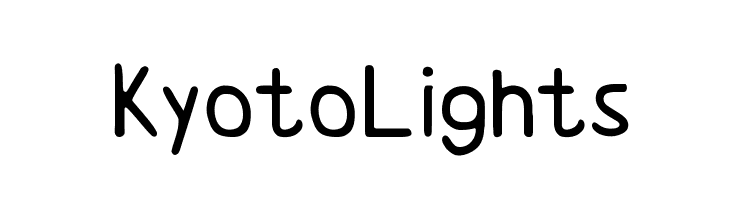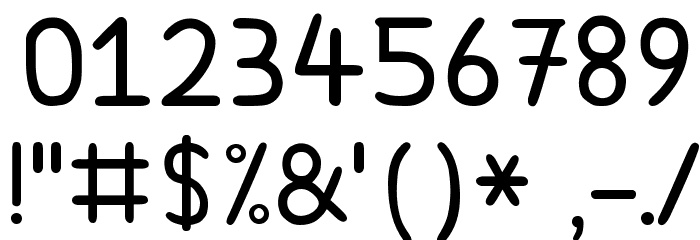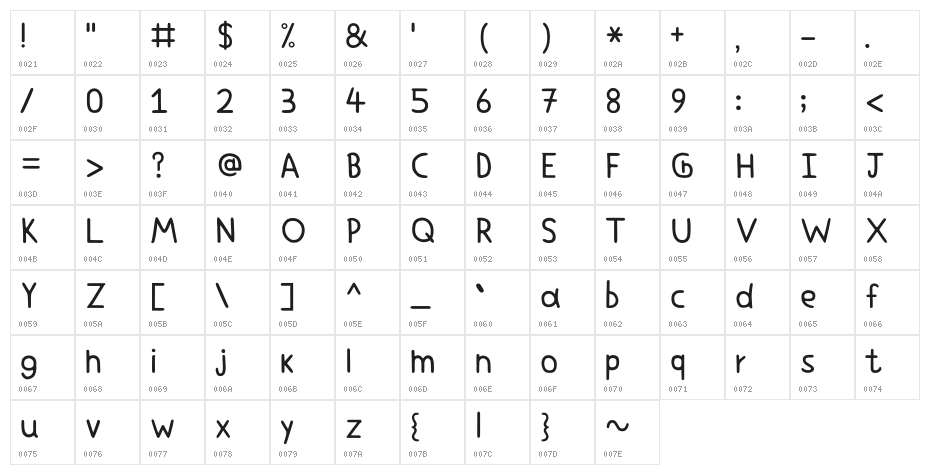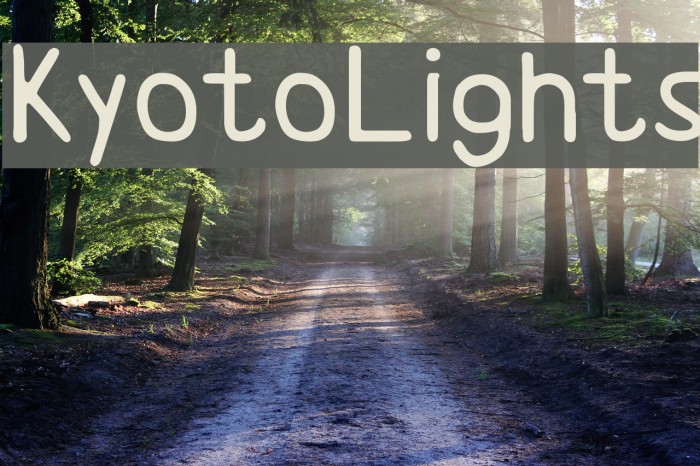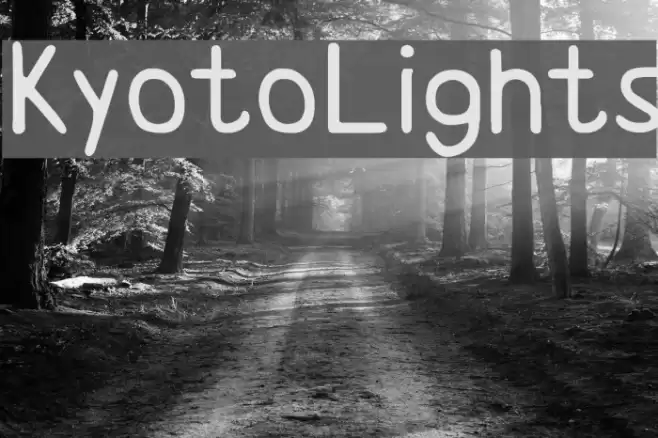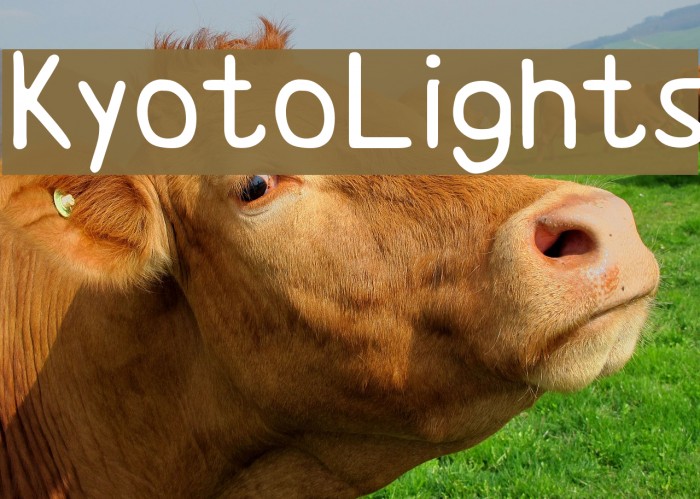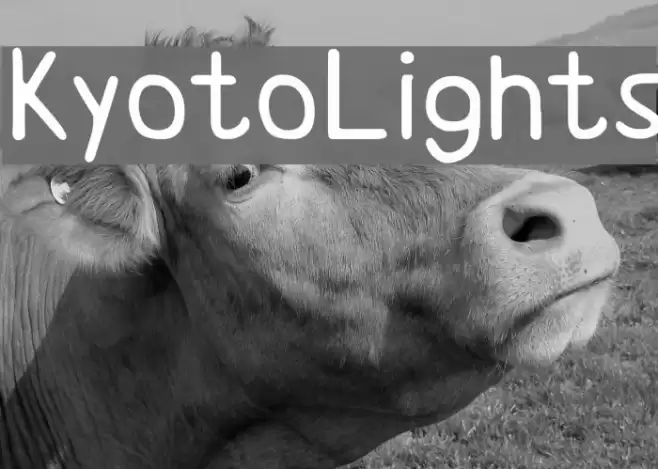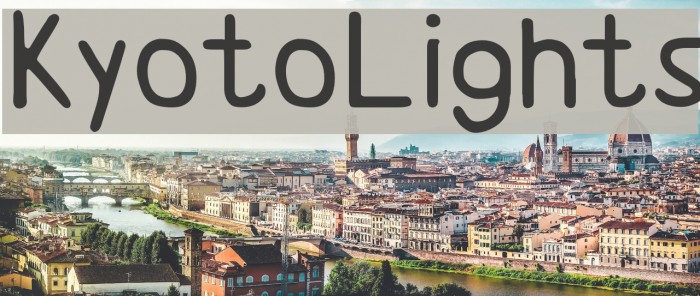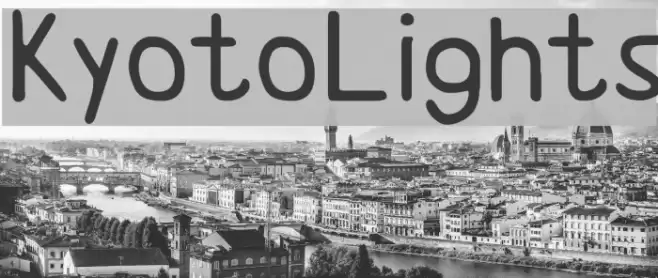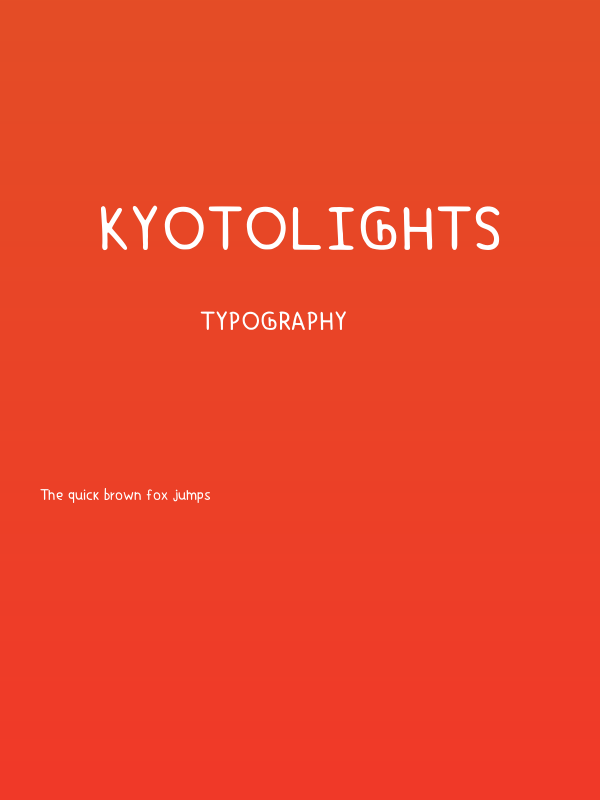
KyotoLights Font
KyotoLights Description
This font features a playful and rounded style, characterized by its smooth curves and friendly appearance. The letters are evenly spaced, with a consistent stroke width that gives it a uniform look. The uppercase and lowercase letters maintain a harmonious balance, making it easy to read. The numerals are clear and distinct, matching the overall aesthetic of the alphabet. Special characters are designed with the same rounded edges, ensuring a cohesive feel throughout. This font is ideal for projects that require a casual and approachable tone, such as children's books, playful branding, or informal invitations.
| Proposed Projects | Children's books, playful branding, informal invitations, casual posters. |